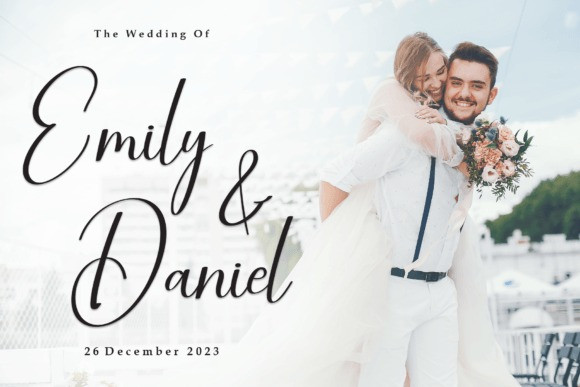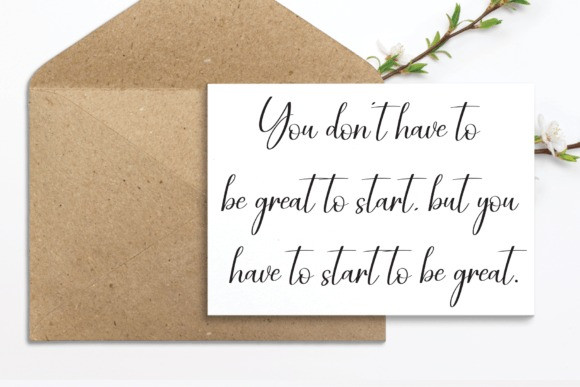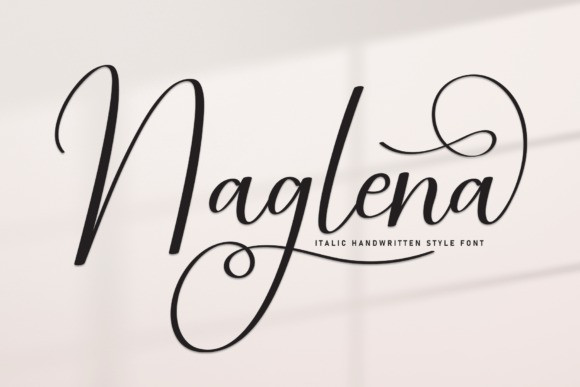
Naglena Handwriting Font
Naglena Handwriting Font is a sweet and friendly handwritten font. Its natural and uniquestyle makes it incredibly fitting to a large pool of designs. The only limit is your imagination!